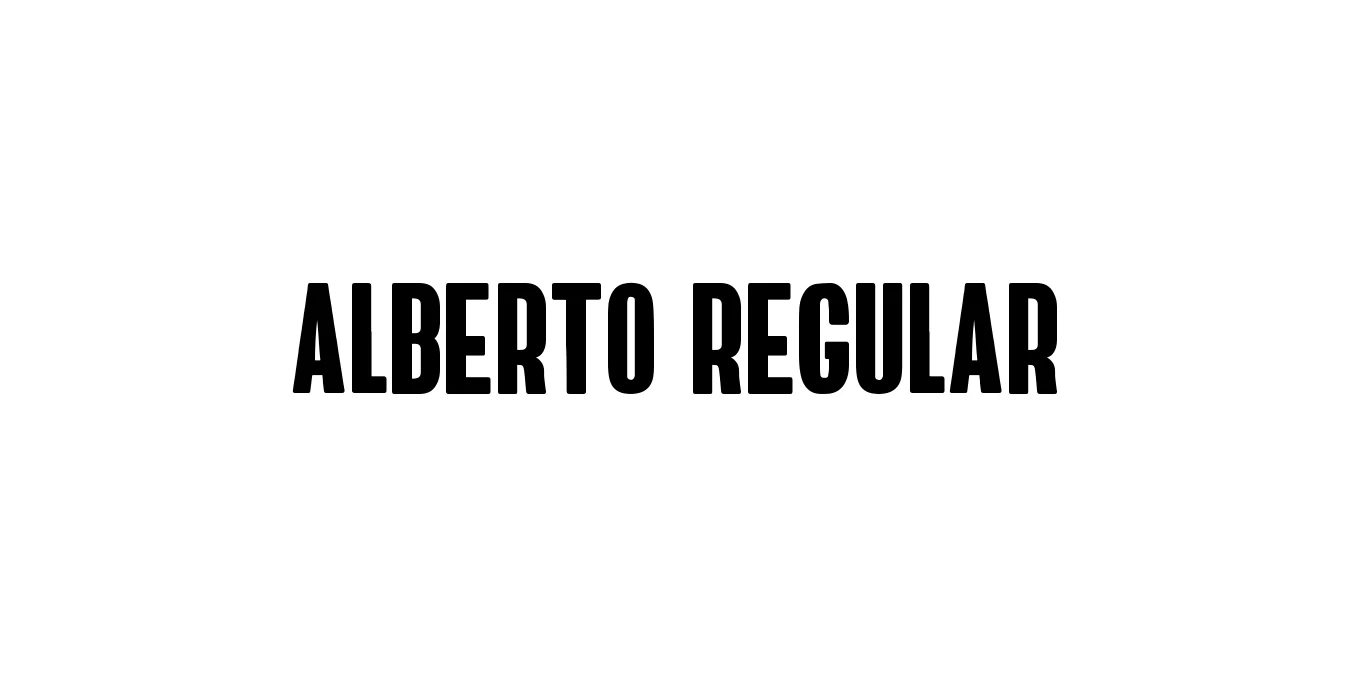
Alberto Regular
Designed by Mariana de la Riva
| Font Name | Alberto |
| Category | Display / Sans Serif |
| Designer | Mariana de la Riva |
| Similar Fonts | Bebas Neue, Anton, Impact, Oswald |
Alberto Regular is a sophisticated display typeface characterized by its narrow proportions and bold, clean-cut letterforms. Designed to capture attention, this font bridges the gap between classic editorial elegance and modern graphic design, making it a favorite for designers seeking a high-impact visual aesthetic without compromising on legibility. Its tall x-height and minimalist strokes provide a sleek, contemporary feel that works across various mediums.
The typeface excels in vertical hierarchy, offering a sense of height and strength to any layout. Whether used for branding or large-scale poster design, its structural approach allows it to pair seamlessly with more ornate scripts or neutral body text fonts. Its popularity in the design community stems from its ability to convey confidence and authority while maintaining a compact footprint, perfect for tight digital and print spaces.
Alberto Regular Best Uses
Perfect for magazine covers, high-fashion spreads, and title pages.
Effective for landing page hero sections that need a strong, vertical presence.
Ideal for minimalist logos and luxury corporate identities.
Great for large-scale print media where space for horizontal width is limited.
Excellent for high-contrast social media graphics and promotional banners.